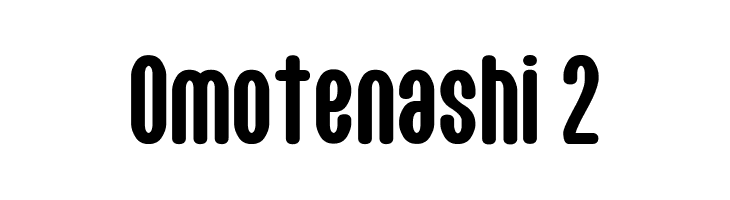
A bold, rounded font with a playful and modern style.
A bold, rounded font with a playful and modern aesthetic.
A bold, geometric font with rounded edges and a modern style.
A bold, condensed font with a strong and uniform appearance.